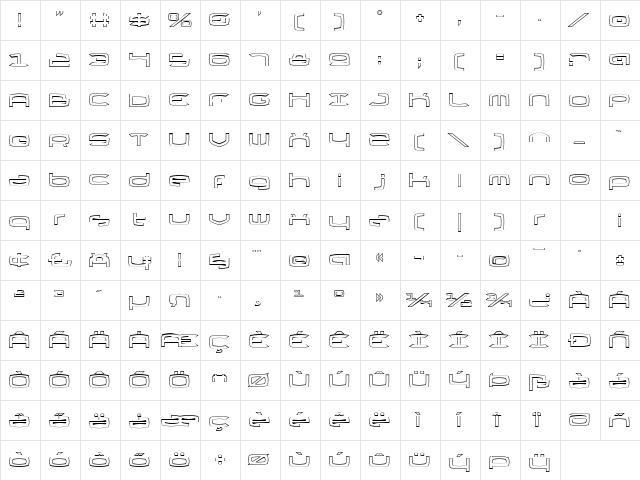
Thundergod II Outline Outline
Design Context for Thundergod II Outline Typeface
Thundergod II Outline brings ornamental detail and strong personality to headlines and identities, where visual impact matters more than quiet functionality.
Font Pairing: Pair with a clean neutral sans-serif for body copy to let Thundergod II Outline's character lead without overwhelming the composition.
Pro Tip: Use Thundergod II Outline exclusively at display sizes — it was designed to be seen, not read at length. Let a neutral companion handle body copy.